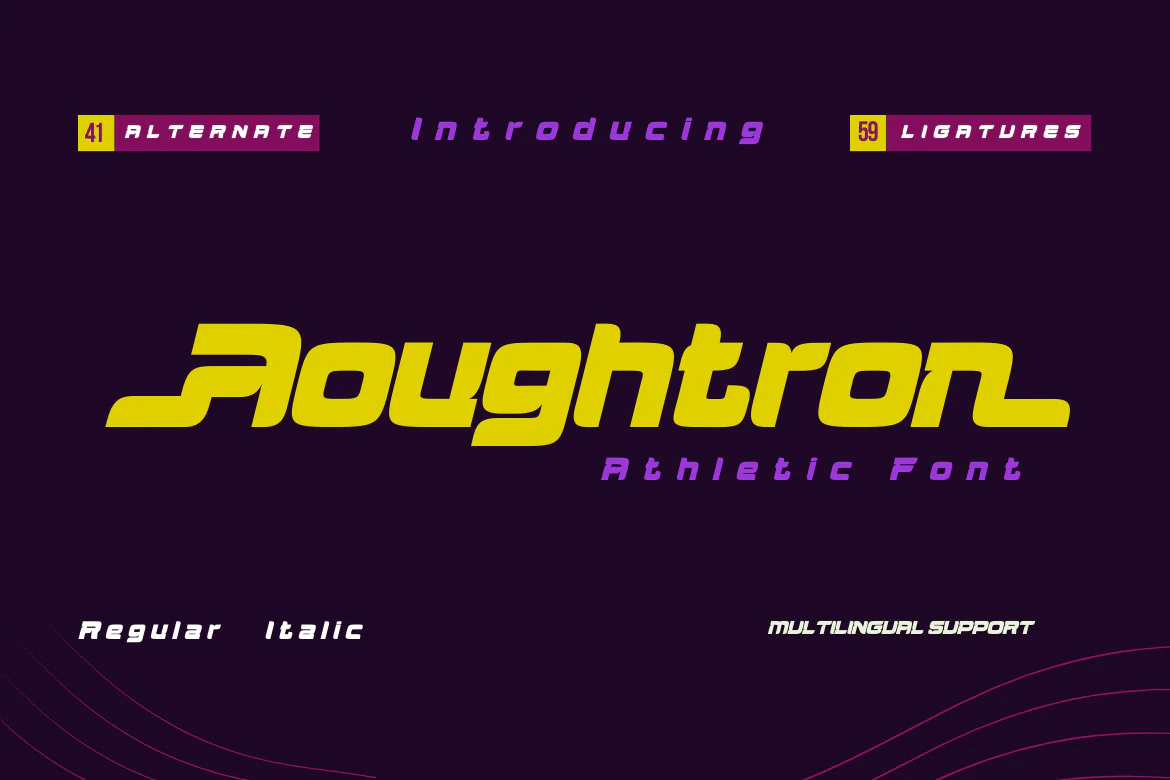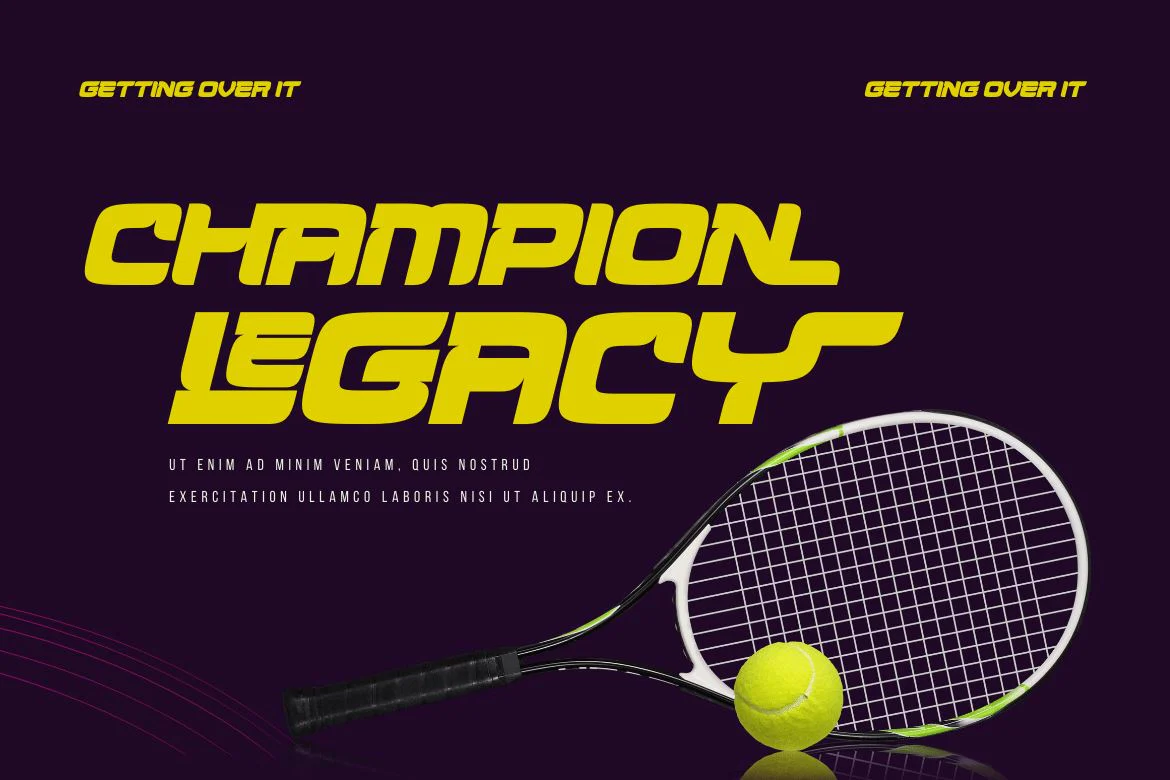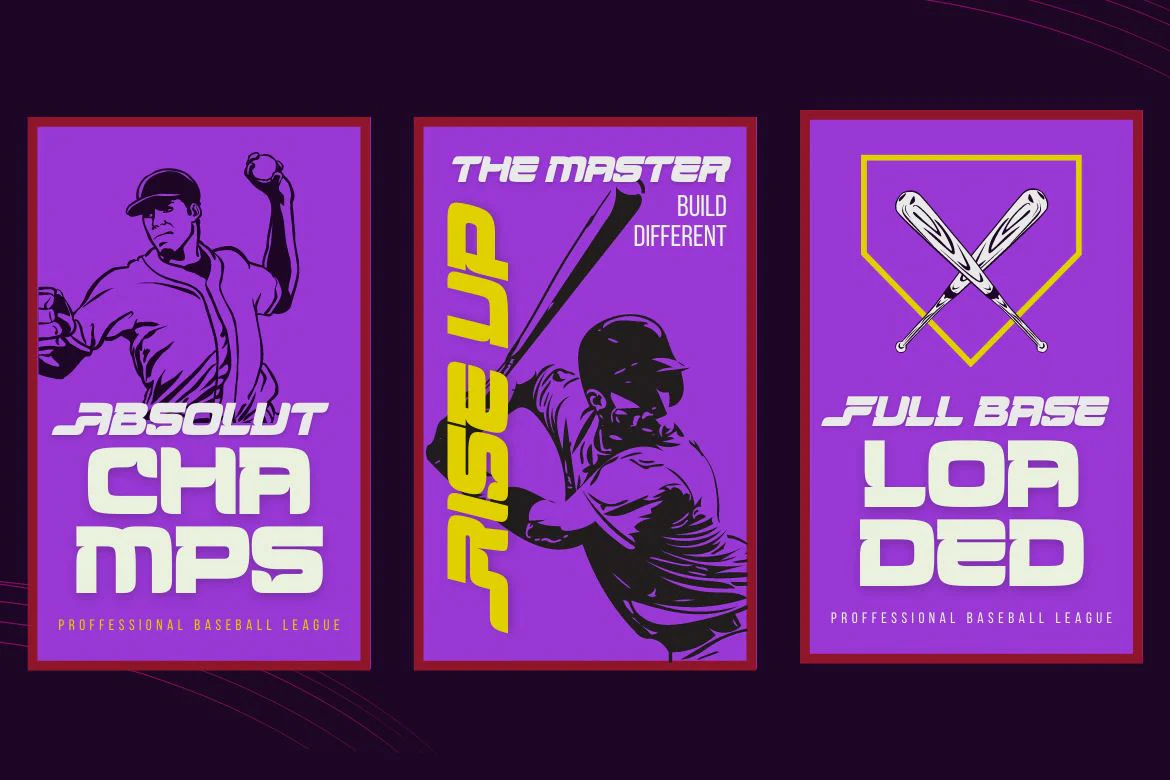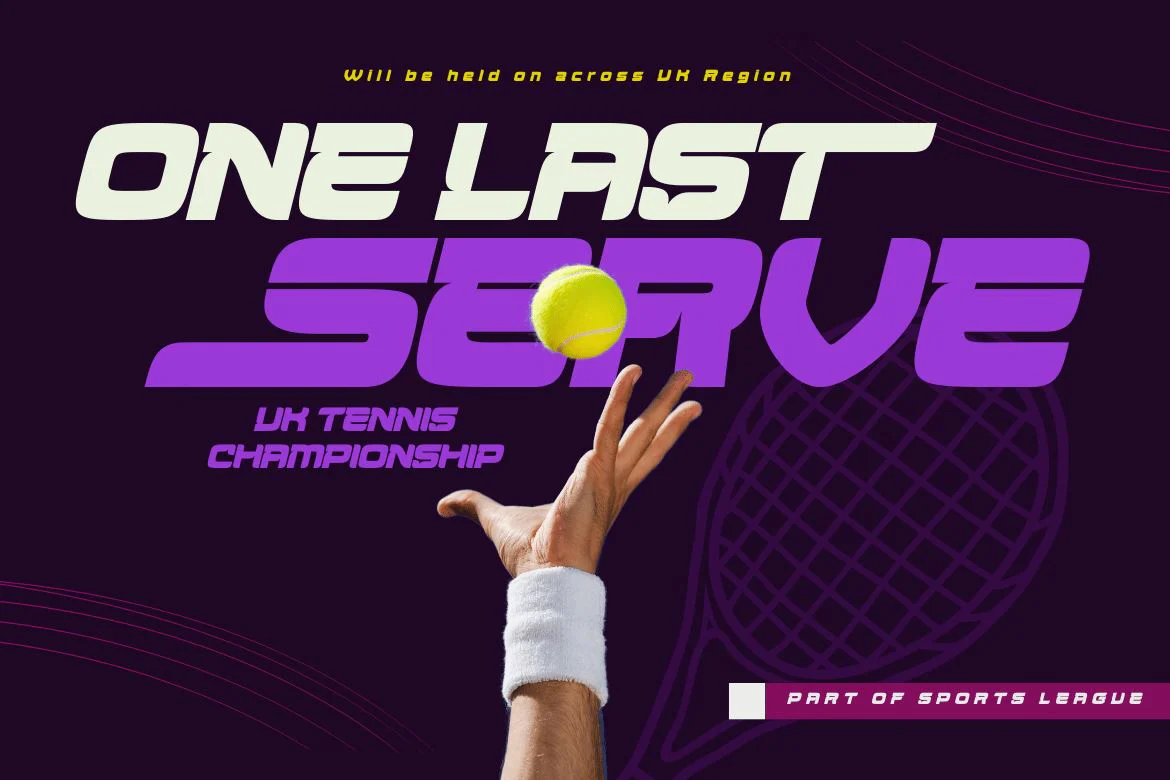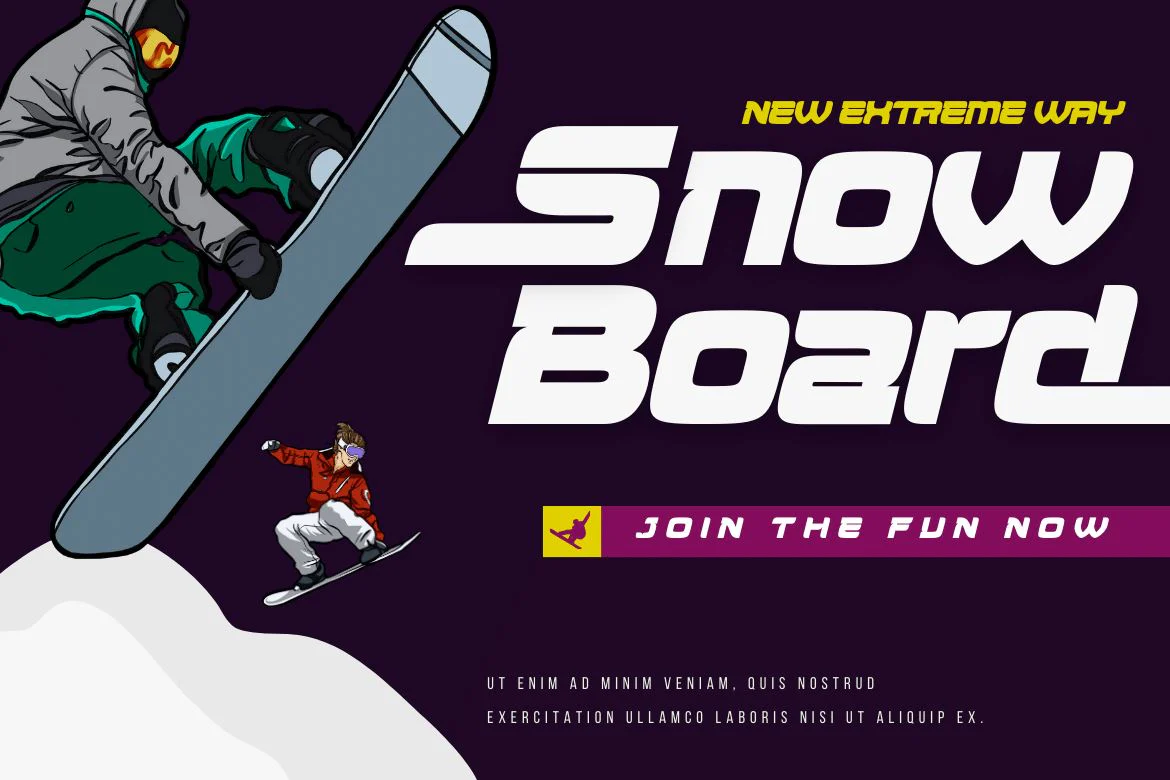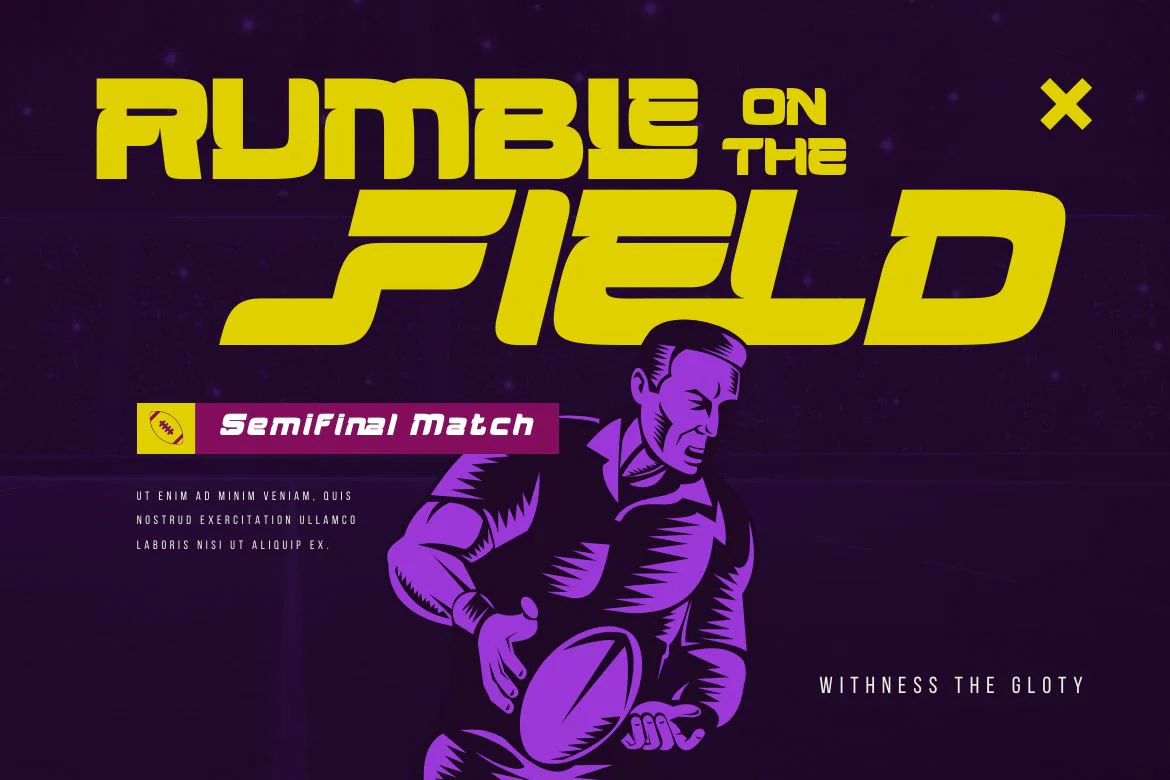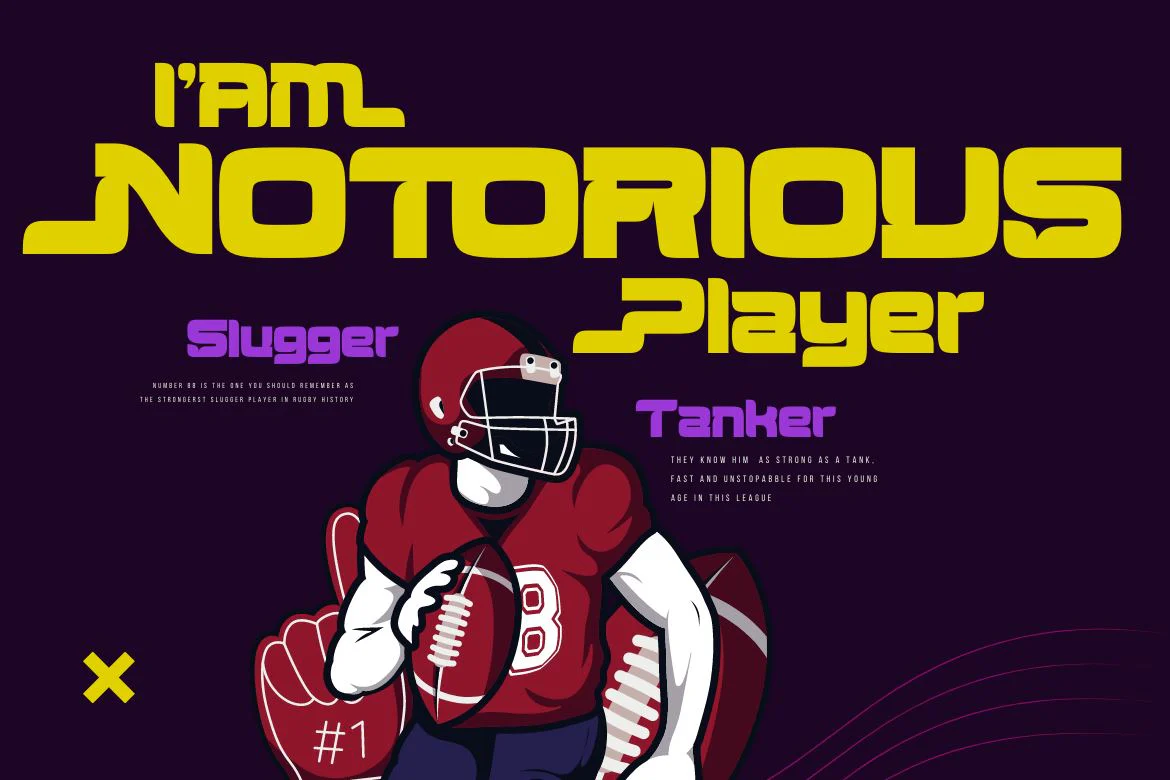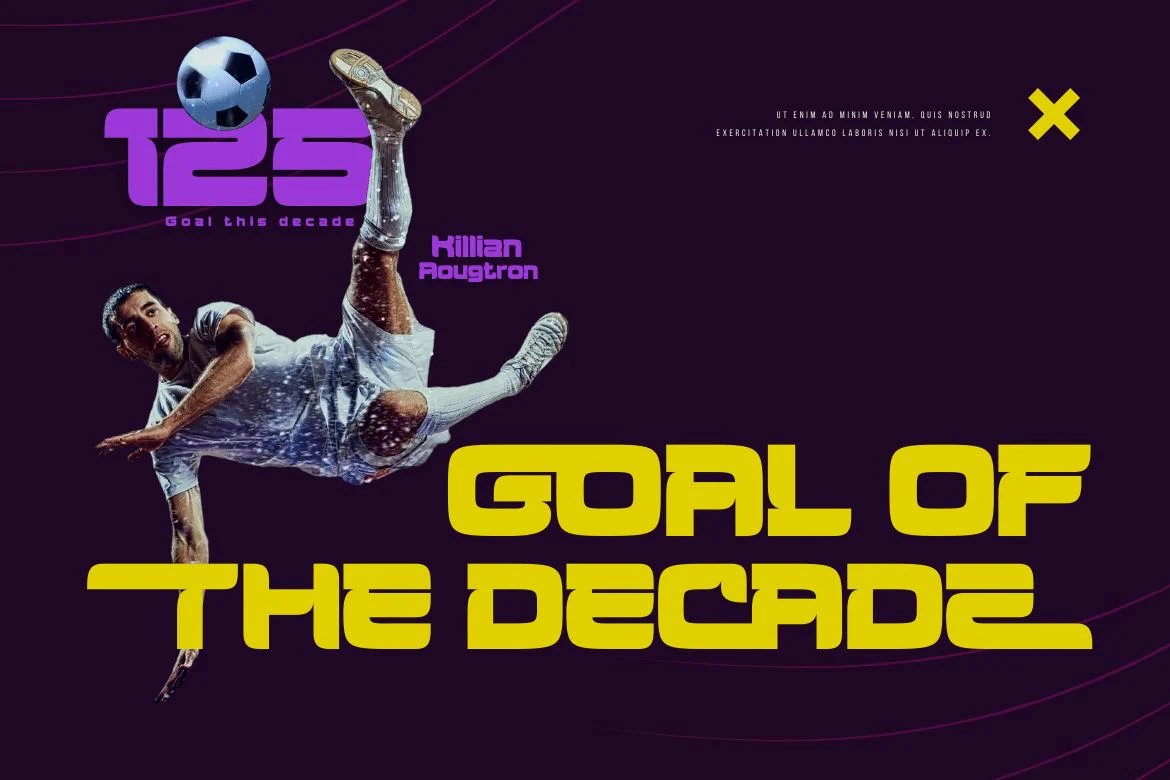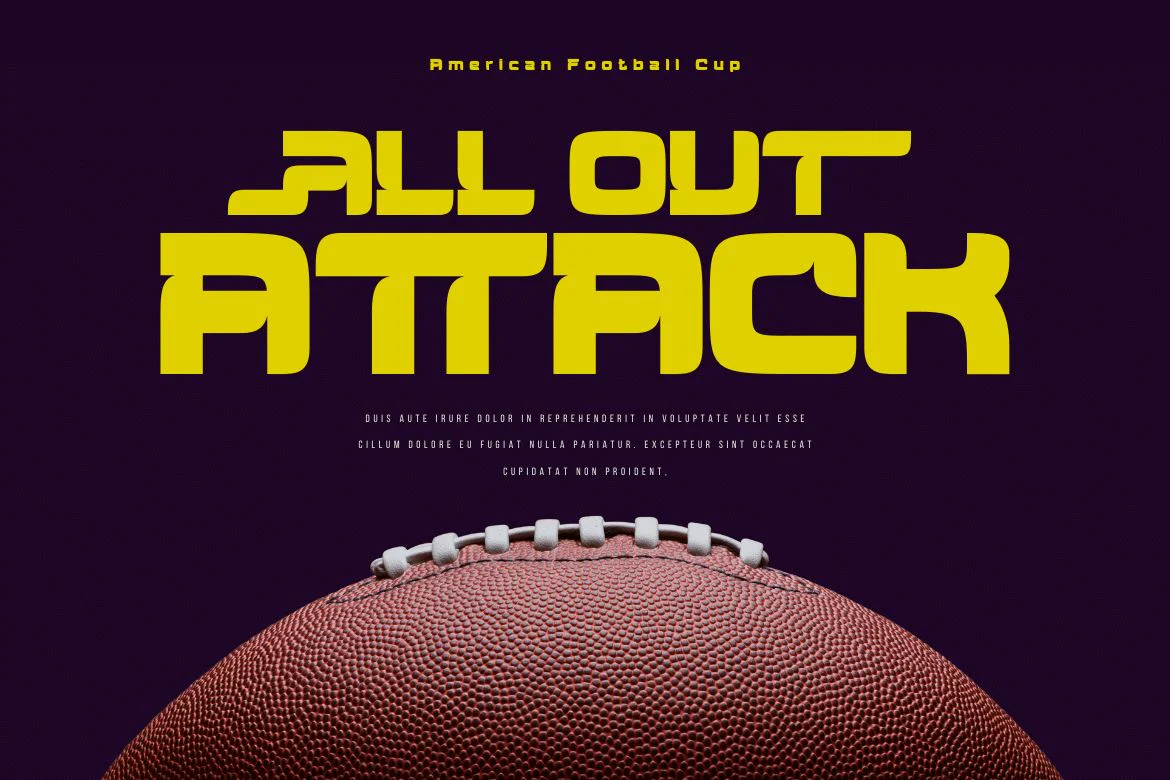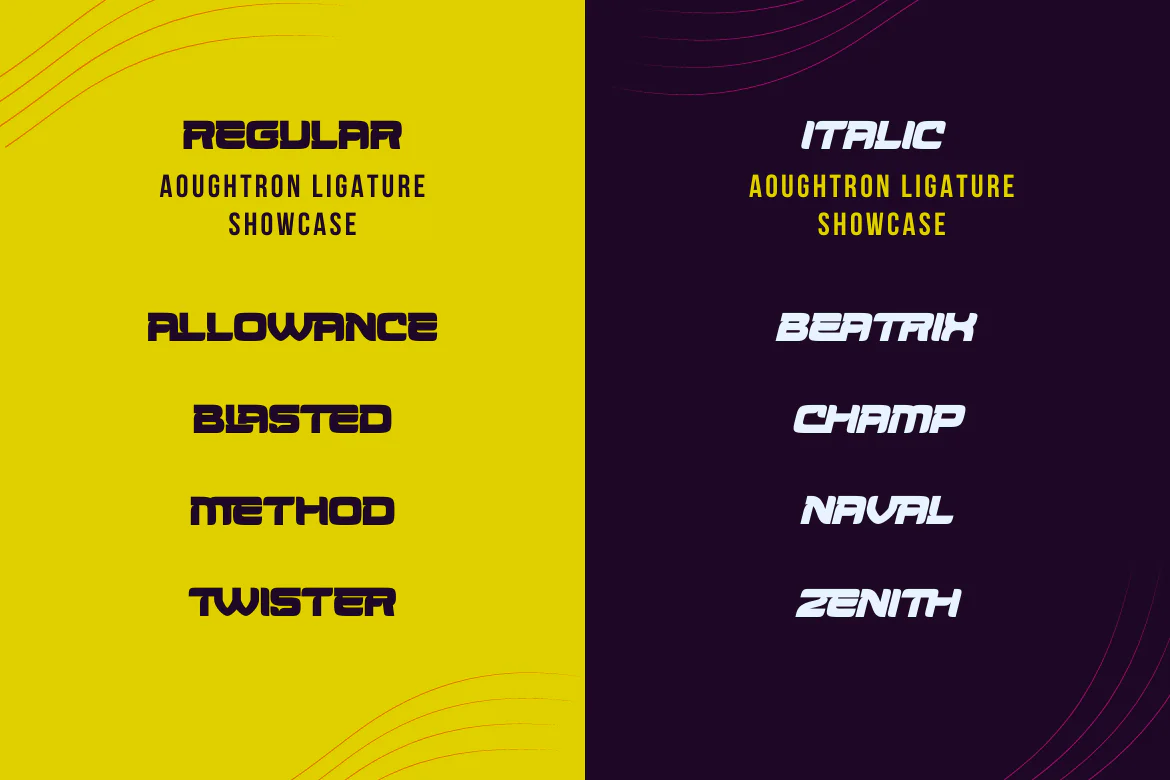
Aougtron | Athletic Font
Aougtron is a modern font that combines a dynamic slope with sporting event-inspired lettering and cutouts. Designed to apply to all professional sporting events, it can also be used to create modern logos and screen prints in text fields.
Aougtron’s bold and powerful appearance is created by the strong horizontal strokes on each letter which contrasts sharply with the elegant strokes on the corners of each letter. Combine these fonts to create a maximum display effect on each of your projects.
Aougtron is a modern font that combines a dynamic slope with sporting event-inspired lettering and cutouts. Designed to apply to all professional sporting events, it can also be used to create modern logos and screen prints in text fields.
Aougtron’s bold and powerful appearance is created by the strong horizontal strokes on each letter which contrasts sharply with the elegant strokes on the corners of each letter. Combine these fonts to create a maximum display effect on each of your projects.